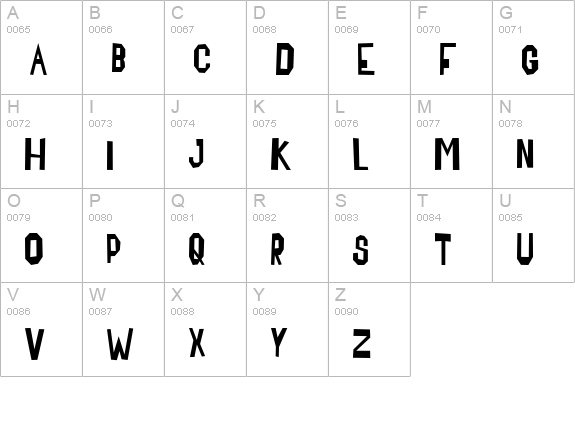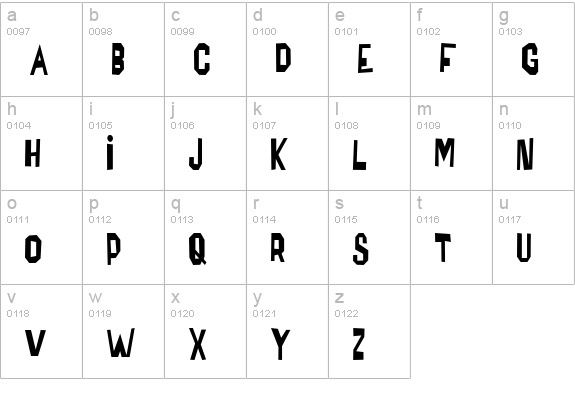
Bensfolk Condensed Font Details
Bensfolk Condensed is a distinctive, condensed-width variant in the Bensfolk typeface family \xE2\x80\x94 well suited to design and typography projects.
Bensfolk Condensed font is a modern and sleek typeface that exudes sophistication and elegance. With its clean lines and minimalistic design, this font is perfect for a wide range of design projects, from branding to editorial design. The condensed style adds a touch of sleekness and professionalism to any layout. What sets Bensfolk Condensed font apart is that it is not only stylish and versatile, but also free to download. This means you can elevate your designs without breaking the bank. Whether you are working on a logo, website, or print materials, Bensfolk Condensed font is sure to make a statement. To get your hands on this stunning font, simply head over to FontsMarket.com where it is freely available for download. Don't miss out on this opportunity to enhance your designs with the timeless elegance of Bensfolk Condensed font.